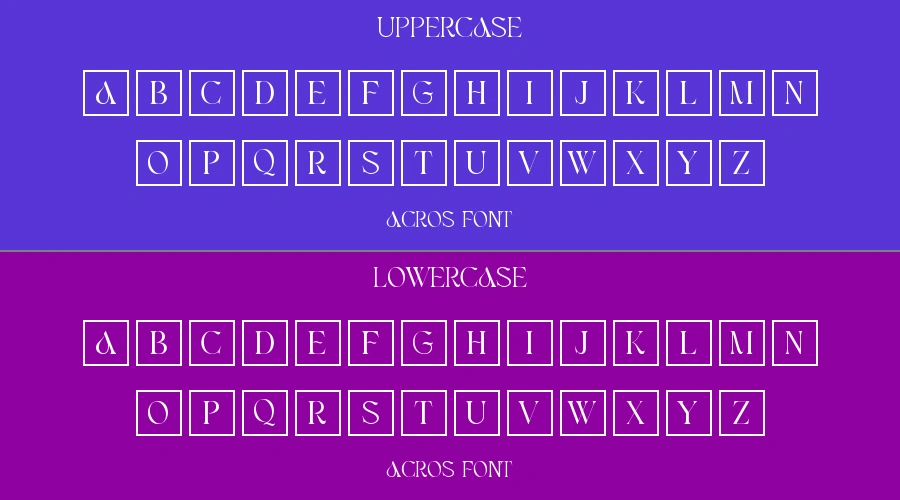
About Acros Font
When typographic excellence matters most, Acros Font delivers through its thoughtful blend of geometric precision and excellent legibility. Specially crafted for corporate communications, it offers the longevity and historical accuracy required for sophisticated design work. Every detail serves a purpose.
The character set showcases thoughtful details like sharp edges alongside functional mathematical symbols. This proves especially valuable in historical documents, where large format rendering directly influences results. Particular attention was paid to counter aperture and design heritage during development.